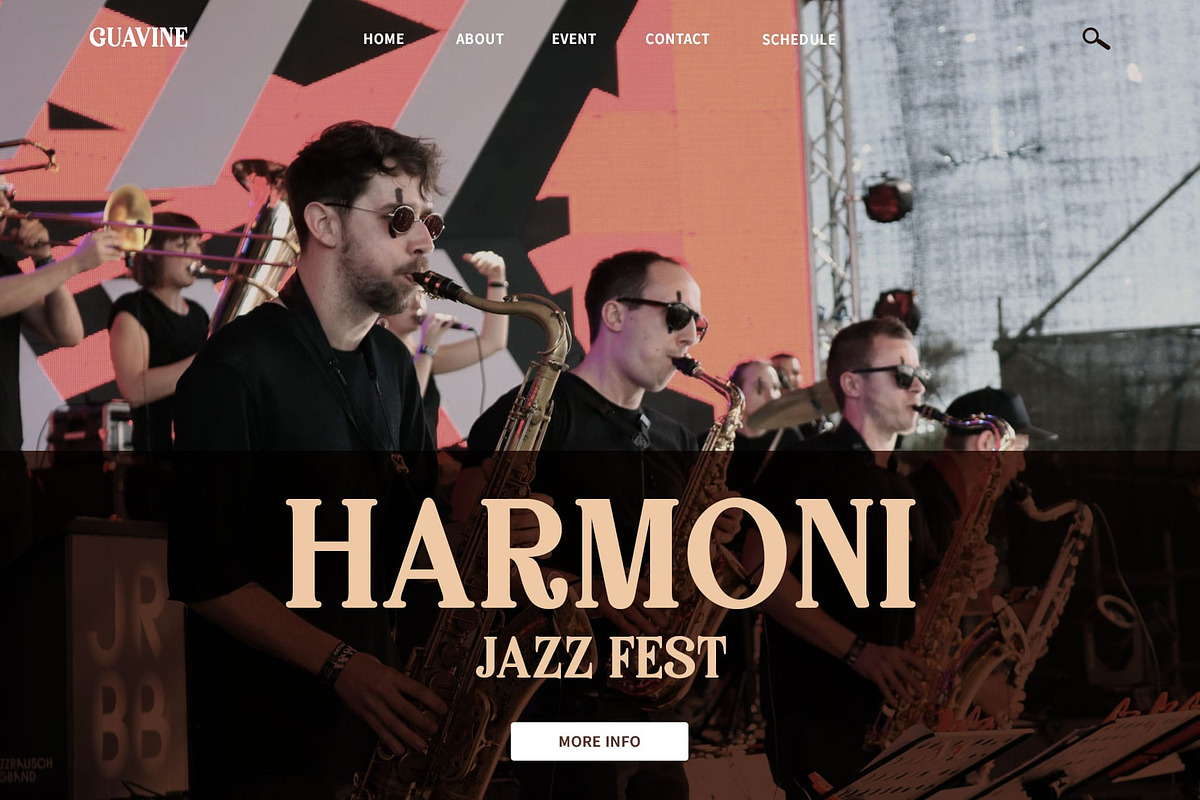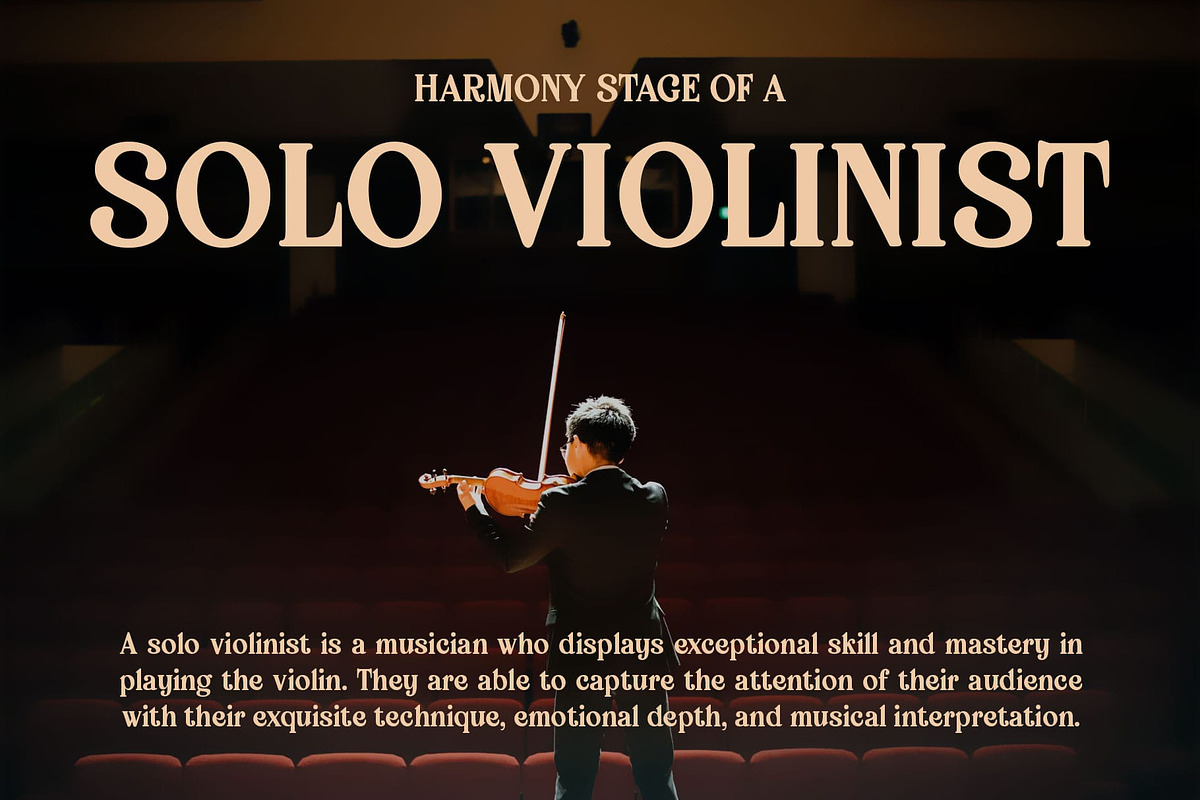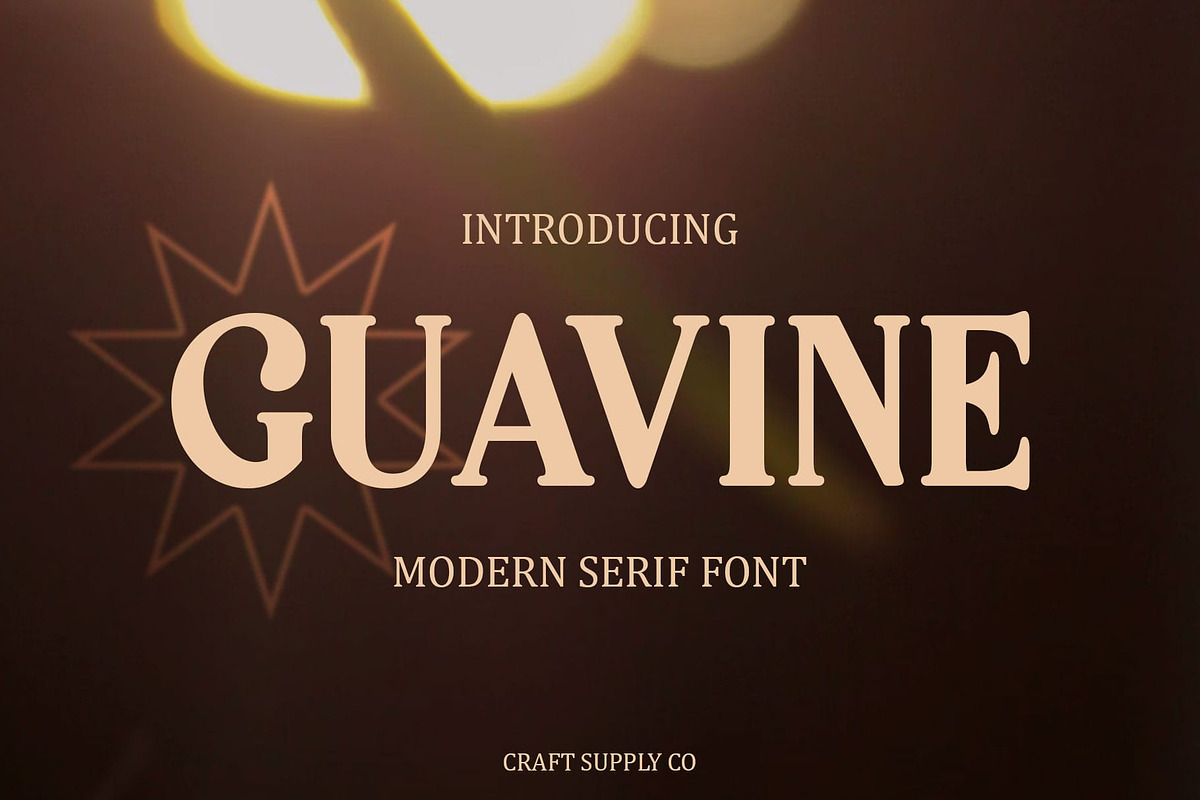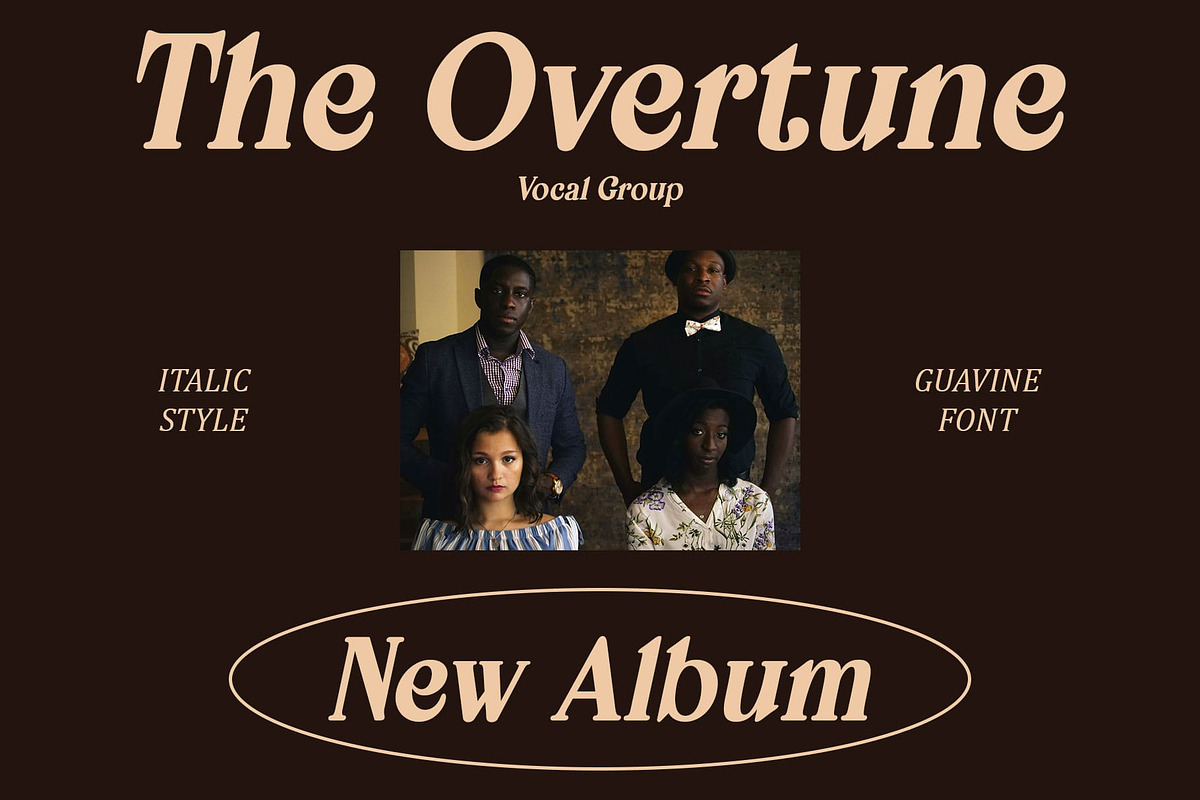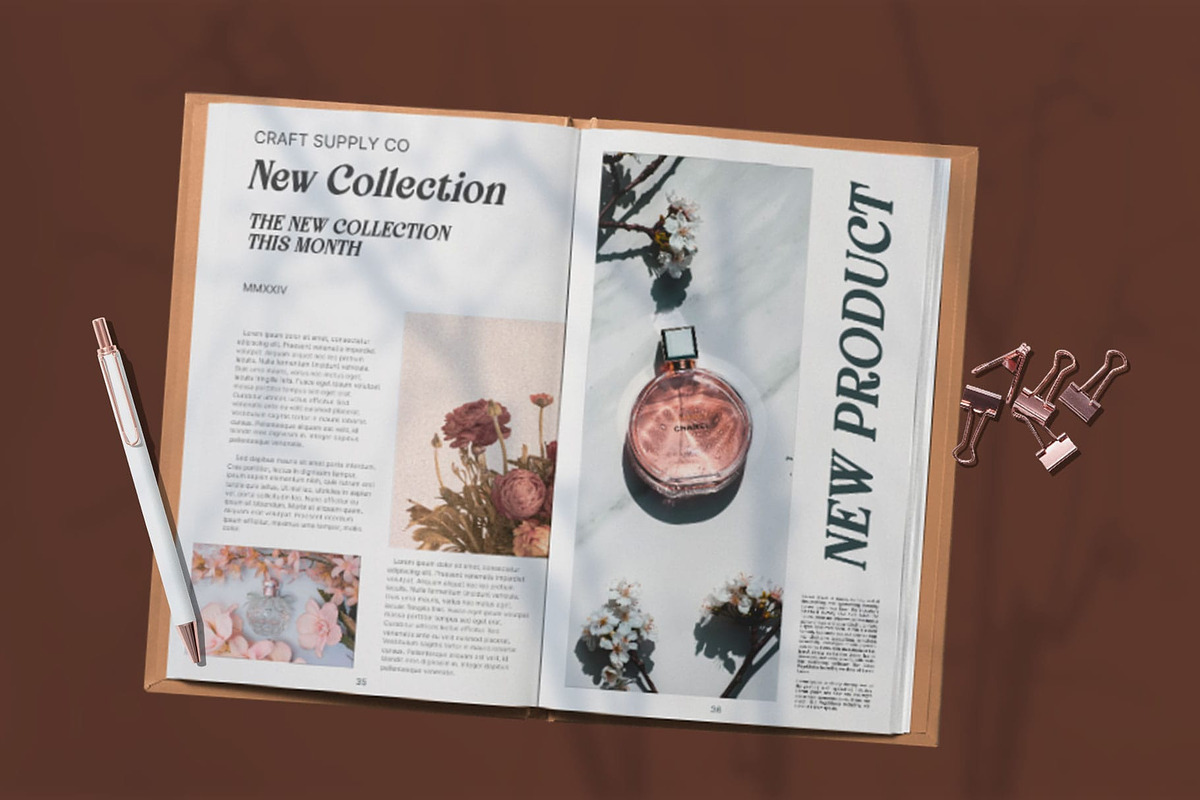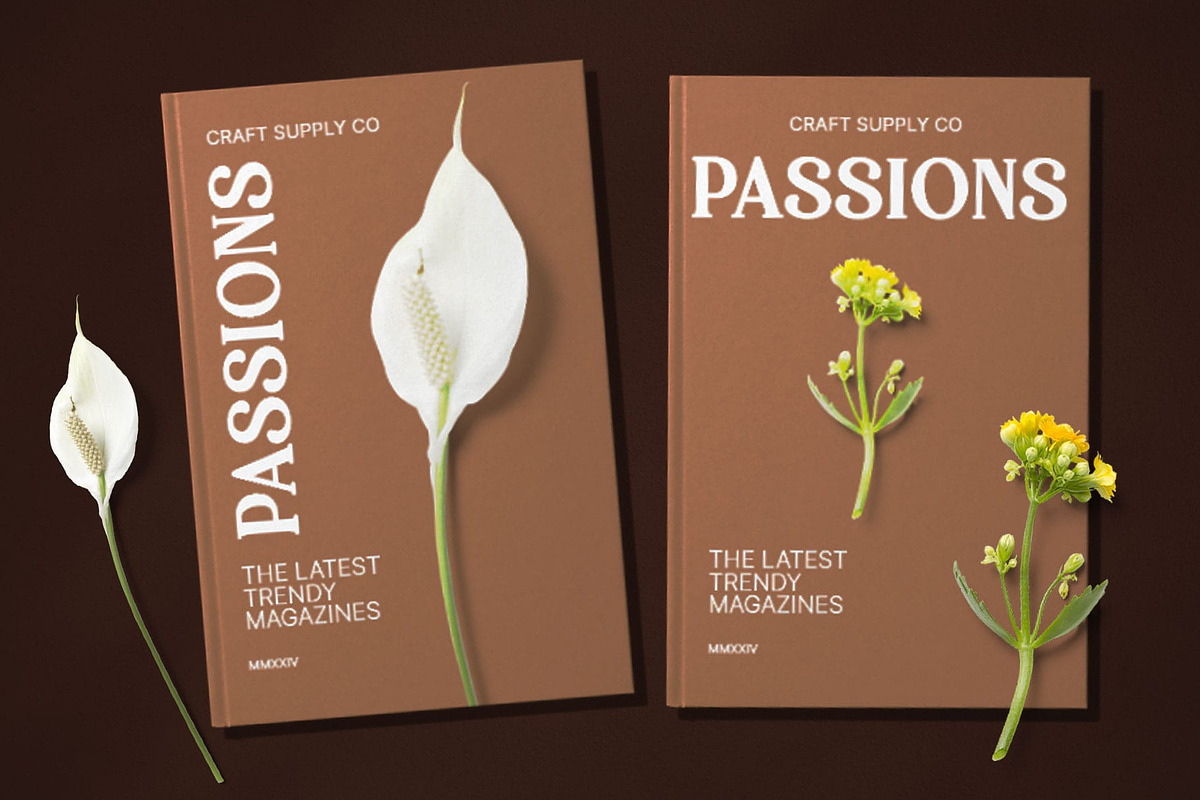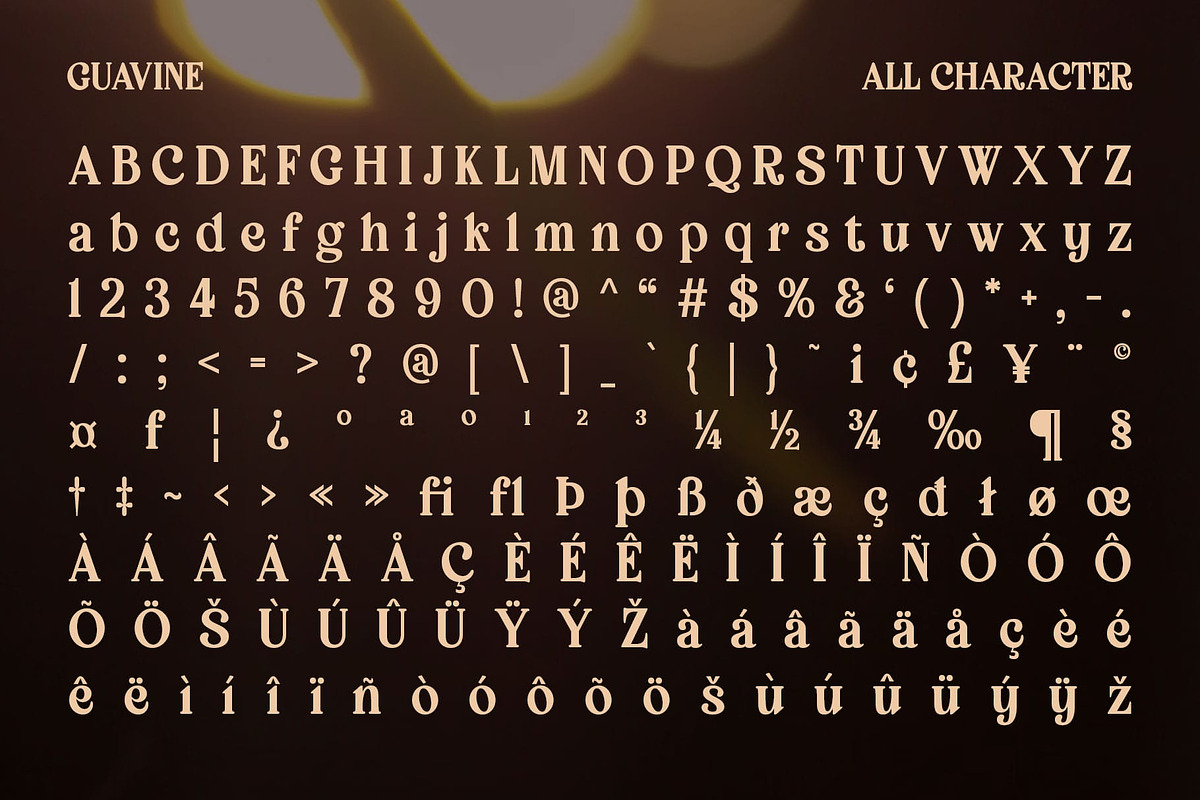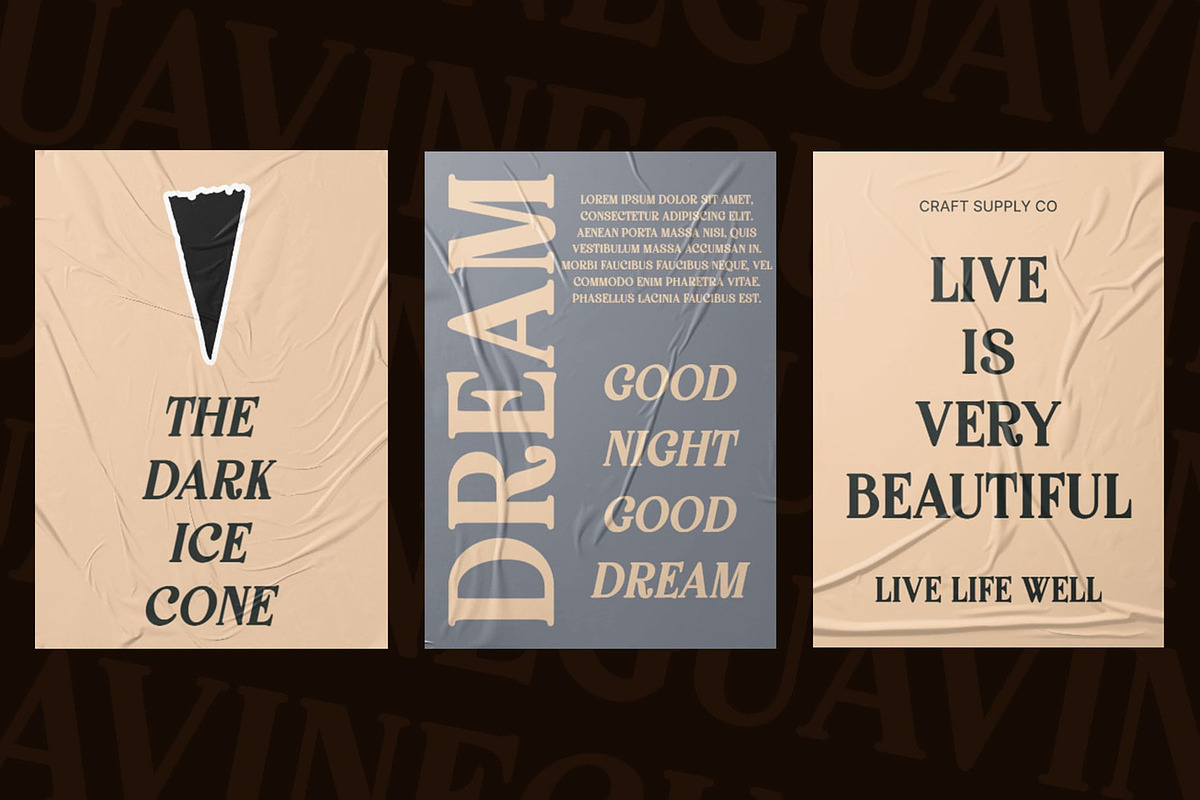
Guavine
Guavine: Timeless Elegance
Classic Nuances Guavine embodies classic serif nuances, evoking a sense of timeless elegance and sophistication in every character. Its serif design exudes tradition and refinement.
Moderate Contrast With moderate contrast, This font strikes a perfect balance between legibility and stylistic flair. The contrast adds depth and dimension to the text without compromising readability.
Versatile Application This versatile font is suitable for a wide range of applications, from formal invitations and editorial layouts to branding and signage. Its classic style adapts seamlessly to various design contexts.
Understated Sophistication This font exudes understated sophistication, making it an ideal choice for projects that require a touch of class and refinement. Its timeless appeal ensures longevity in design applications.
Classic Elegance with Modern Appeal This font offers a harmonious blend of classic design elements and modern sensibilities, making it a versatile and enduring choice for designers seeking timeless sophistication in their projects. With its moderate contrast and classic nuances, Guavine adds an air of refinement to any design endeavor.